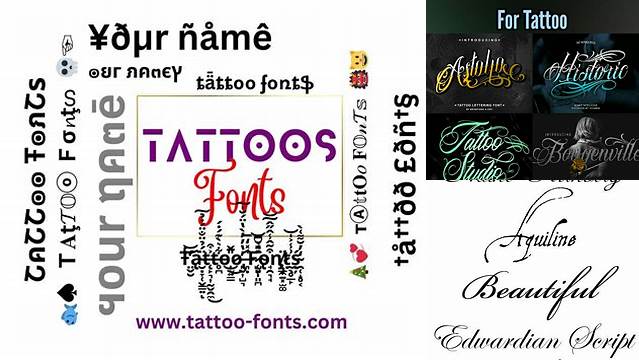
Tattoo Cursive Fonts: Generate & Copy-Paste
Looking for the perfect cursive font for your next tattoo? You've come to the right place! In this article, we'll dive deep into the world of tattoo cursive fonts, exploring generators, copy-pasting options, and everything you need to know to make your tattoo dreams a reality. Let's get started, guys!
1. Understanding Tattoo Cursive Fonts
When it comes to tattoos, the font you choose is just as important as the design itself. Cursive fonts, with their flowing lines and elegant appearance, are a popular choice for those seeking a classic and timeless look. Tattoo cursive fonts can add a touch of sophistication and personality to your ink, making it truly unique. But what exactly makes a good tattoo cursive font? It's all about readability, style, and how well it complements the overall design. You want a font that's not only beautiful but also clear enough to be easily read, even from a distance. This is especially crucial for longer phrases or quotes. Different cursive styles evoke different feelings. Some are delicate and feminine, while others are bold and masculine. Consider the message you want to convey and choose a font that aligns with your personal style and the meaning behind your tattoo. Think about the placement of your tattoo and how the font will fit within that space. A font that looks great on paper might not translate well to the contours of your body. Consider the size, spacing, and flow of the letters to ensure a harmonious design. Ultimately, the best tattoo cursive font is one that resonates with you personally and enhances the overall impact of your tattoo. Take your time, explore different options, and don't be afraid to experiment until you find the perfect match.
2. Exploring Online Tattoo Font Generators
Online tattoo font generators are a fantastic resource for anyone looking to experiment with different styles and visualize their tattoo before committing to it. These generators allow you to type in your desired text and instantly see it rendered in a variety of cursive fonts. Many generators offer customization options, such as adjusting the size, color, and spacing of the letters. This allows you to fine-tune the design and get a realistic preview of what your tattoo will look like. Some generators even offer pre-designed templates or artwork that you can incorporate into your design. This can be a great way to spark your creativity and explore different possibilities. When using an online generator, be sure to choose one that offers a wide selection of cursive fonts. Look for generators that allow you to filter fonts by style, such as elegant, script, or calligraphy. This will help you narrow down your search and find the perfect font for your tattoo. Always double-check the readability of the generated font, especially for longer phrases. Consider how the font will look on your skin and whether it will be easily legible. Don't be afraid to experiment with different fonts and settings until you find a design that you're completely satisfied with. Once you've found the perfect font, you can typically download the image or copy the text for use in your tattoo design. Some generators even allow you to share your design with friends or your tattoo artist for feedback. Online tattoo font generators are a convenient and user-friendly way to explore the world of tattoo cursive fonts and find the perfect design for your next ink.
3. Copy and Paste: Making it Easy
One of the biggest advantages of using online tattoo font generators is the ability to easily copy and paste the generated text. This makes it incredibly convenient to transfer your chosen font into design software, documents, or communication with your tattoo artist. Simply type your desired text into the generator, select your preferred cursive font, and then copy the generated text. You can then paste the text into any application that supports text input, such as Adobe Photoshop, Microsoft Word, or even an email. This eliminates the need to manually recreate the font, saving you time and effort. When copying and pasting tattoo cursive fonts, it's important to ensure that the formatting is preserved. Some applications may not support certain font styles or special characters, which can result in the text being displayed incorrectly. To avoid this, try using a plain text editor or a dedicated font management tool to copy and paste the text. You can also try saving the generated text as an image file, such as a PNG or JPEG, and then importing the image into your design software. This will ensure that the font is displayed exactly as it was generated. Copy and paste functionality makes it incredibly easy to experiment with different tattoo cursive fonts and incorporate them into your designs. Whether you're a professional tattoo artist or simply looking to create a unique tattoo for yourself, this feature can save you a lot of time and effort. So, go ahead and explore the world of online tattoo font generators and unleash your creativity with the power of copy and paste!
6. Popular Cursive Fonts for Tattoos
Choosing the right cursive font for your tattoo can be a daunting task, as there are countless options available. To help you narrow down your search, here are some popular cursive fonts that are commonly used in tattoo designs: Script fonts are a classic choice for tattoos, offering a timeless and elegant look. Some popular script fonts include Brush Script, Edwardian Script, and Great Vibes. Calligraphy fonts are another popular option, offering a more formal and sophisticated look. Some popular calligraphy fonts include Kuenstler Script, Bickham Script Pro, and Gabriola. Hand-lettered fonts are designed to mimic the look of handwriting, offering a more personal and unique touch. Some popular hand-lettered fonts include Amatic SC, Permanent Marker, and Coming Soon. Vintage fonts evoke a sense of nostalgia and history, making them a great choice for those seeking a classic and timeless look. Some popular vintage fonts include Adelia, Thirsty Script, and Lobster. Modern fonts offer a sleek and contemporary look, making them a great choice for those seeking a more minimalist design. Some popular modern fonts include Pacifico, Signika, and Roboto. When choosing a font for your tattoo, consider the overall style and message you want to convey. A script font might be a good choice for a romantic quote, while a hand-lettered font might be more appropriate for a personal message. Experiment with different fonts and styles until you find the perfect match for your tattoo design. Remember to also consider the readability of the font, especially for longer phrases or quotes. A font that looks great on paper might not translate well to the skin, so it's important to choose a font that is clear and easy to read. With a little research and experimentation, you can find the perfect cursive font to make your tattoo truly unique.
7. Matching Fonts to Tattoo Styles
Different tattoo styles call for different font choices. A traditional tattoo, with its bold lines and classic imagery, might pair well with a bold, traditional-style cursive font. Think something with thick strokes and a slightly rough edge. For a watercolor tattoo, with its soft, flowing colors, a delicate and elegant cursive font would be a better fit. Something light and airy that complements the ethereal quality of the watercolor. Blackwork tattoos, known for their stark black ink and geometric designs, might benefit from a more modern and minimalist cursive font. A clean, sans-serif cursive could provide a nice contrast. Realism tattoos, which aim to replicate real-life images, often don't incorporate text at all. But if you were to add text, a subtle and understated cursive font would be the way to go, so as not to detract from the realism of the image. Tribal tattoos, with their bold, geometric patterns, typically don't use cursive fonts. However, if you were to incorporate text, a strong and angular font would be more appropriate. The key is to consider the overall aesthetic of the tattoo and choose a font that complements it, not clashes with it. Think about the mood and message you want to convey and select a font that aligns with that vision. Don't be afraid to experiment with different combinations until you find the perfect pairing. Ultimately, the best font choice is the one that resonates with you and enhances the overall impact of your tattoo.
8. Font Size and Placement Considerations
The size and placement of your tattoo cursive font are crucial factors that can significantly impact the overall look and readability of your tattoo. A font that looks great on paper might not translate well to the skin if it's too small or placed in an awkward location. When choosing the font size, consider the length of the text and the area of the body where the tattoo will be placed. Longer phrases will require a larger font size to ensure readability, while shorter words or initials can be smaller and more delicate. The placement of your tattoo is just as important as the font size. Consider the natural curves and contours of your body and choose a location that complements the flow of the text. Avoid placing tattoos in areas that are prone to stretching or distortion, such as the stomach or upper arms. The best placement for a tattoo is typically a flat, stable area of the body, such as the forearm, back, or chest. When choosing the placement, also consider your personal style and preferences. Do you want the tattoo to be easily visible, or do you prefer a more discreet location? Think about how the tattoo will look with different clothing and hairstyles. It's always a good idea to consult with your tattoo artist about the best size and placement for your tattoo. They can provide valuable advice based on their experience and expertise. They can also help you visualize the tattoo on your body before you commit to it, ensuring that you're happy with the final result. With careful planning and consideration, you can choose the perfect font size and placement to create a tattoo that is both beautiful and meaningful.
9. Working with a Tattoo Artist
Collaborating with a skilled tattoo artist is paramount in bringing your tattoo vision to life. They possess the expertise to guide you in font selection, size, placement, and overall design, ensuring your tattoo looks stunning and stands the test of time. Before your appointment, gather inspiration! Browse fonts, designs, and placements that resonate with you. Share these ideas with your artist – the more information they have, the better they can understand your vision. Don't hesitate to ask your artist for their opinion on font choices. They can advise on what fonts work well for tattoos, considering readability and longevity. They can also help you avoid fonts that might blur or fade over time. During the consultation, discuss the size and placement of your tattoo. Your artist can help you determine the ideal size for the font, ensuring it's legible and fits the chosen area of your body. They'll also consider the contours of your body and how the tattoo will flow with your natural shape. Once you've finalized the design, your artist will create a stencil. This stencil acts as a guide during the tattooing process, ensuring accuracy and precision. This is your last chance to make any adjustments before the ink hits your skin, so don't be afraid to speak up if you have any concerns. Remember, open communication is key to a successful tattoo experience. Your tattoo artist is there to help you create a tattoo you'll love for years to come. Trust their expertise, be open to their suggestions, and don't be afraid to ask questions. With their guidance, you can turn your tattoo dreams into a reality.
10. Readability and Longevity of Fonts
When choosing a tattoo cursive font, readability and longevity are two crucial factors to consider. A font that looks beautiful on paper might not translate well to the skin if it's too intricate or delicate. Over time, the ink can spread and blur, making the font even harder to read. To ensure readability, choose a font that has clear, well-defined letterforms. Avoid fonts with overly thin lines or complex flourishes. A simpler, more classic cursive font will generally be easier to read and will hold up better over time. The size of the font also plays a significant role in readability. A font that is too small will be difficult to read, especially as the tattoo ages. Choose a font size that is appropriate for the length of the text and the area of the body where the tattoo will be placed. Longevity is another important consideration. Tattoos fade over time due to sun exposure, skin cell turnover, and other factors. Certain fonts are more prone to fading and blurring than others. Fonts with thin lines and intricate details are more likely to fade, while fonts with bolder lines and simpler shapes tend to hold up better. When in doubt, consult with your tattoo artist about the best fonts for longevity. They can advise you on fonts that are known to hold up well over time and can help you avoid fonts that are likely to fade or blur. By prioritizing readability and longevity, you can choose a tattoo cursive font that will look beautiful and legible for years to come. So, take your time, do your research, and choose a font that will stand the test of time.